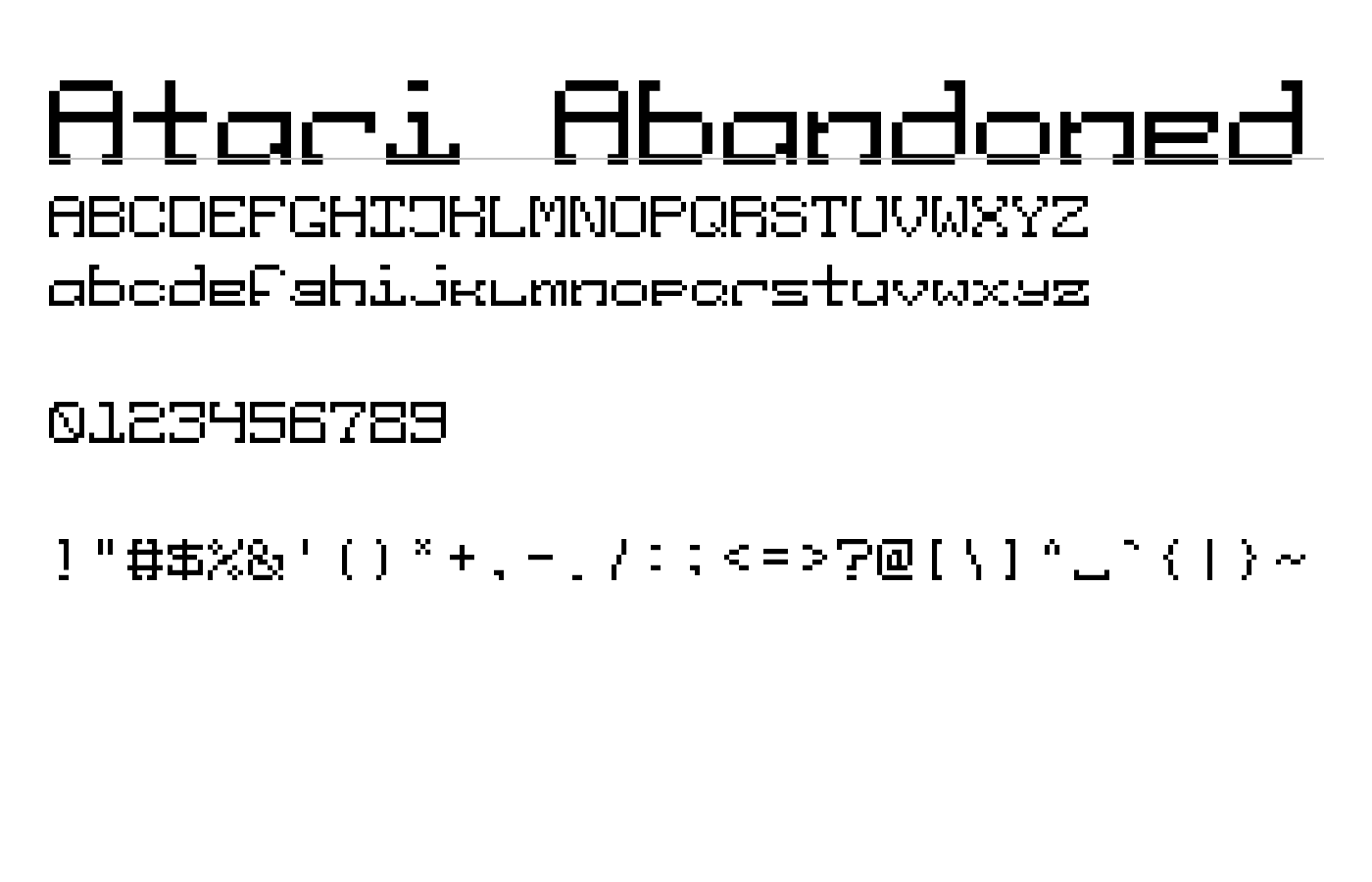
Atari Abandoned is a pixelated, monospaced sans serif font with a strong retro digital vibe, reminiscent of early computer and video game typography. Its blocky, geometric letterforms feature consistent stroke widths and low contrast, creating a technical and minimalist aesthetic ideal for vintage tech, gaming, or digital-themed designs. This font works best in logos, headlines, and display text where a nostalgic, pixel-art style is desired.